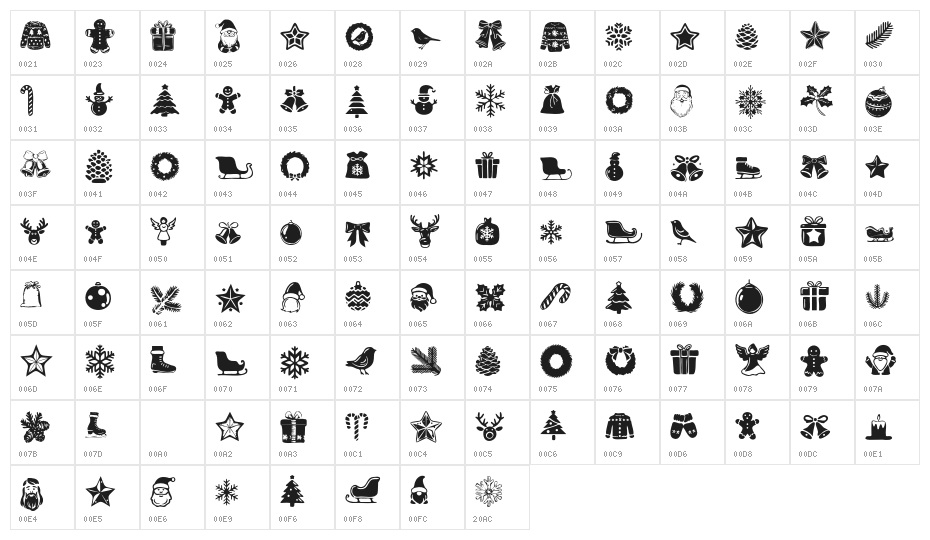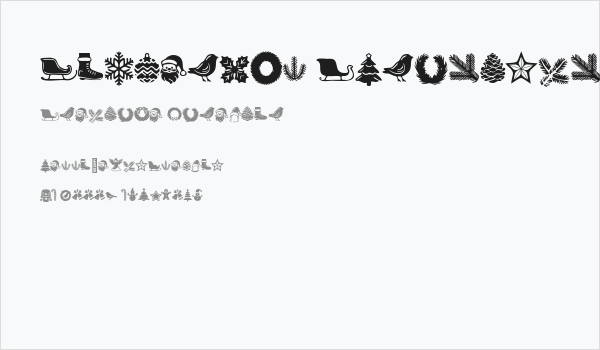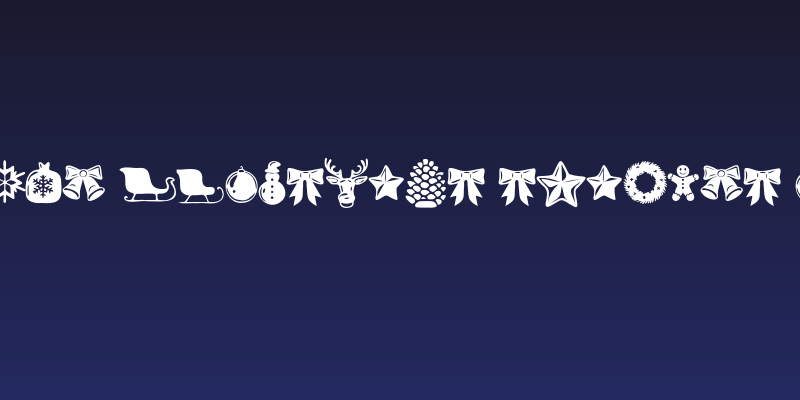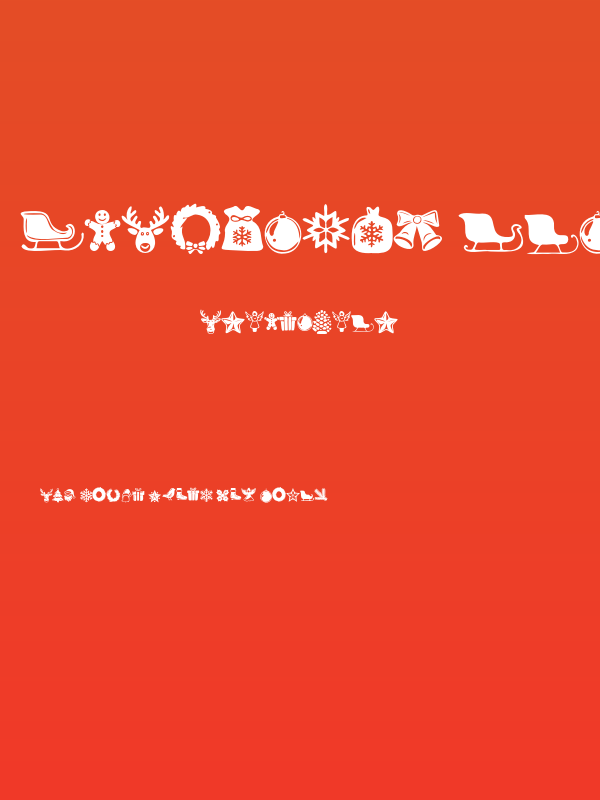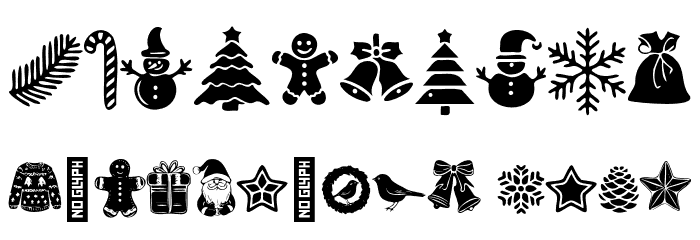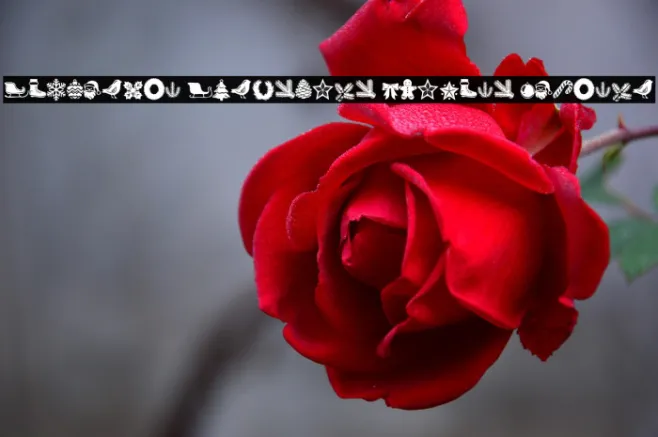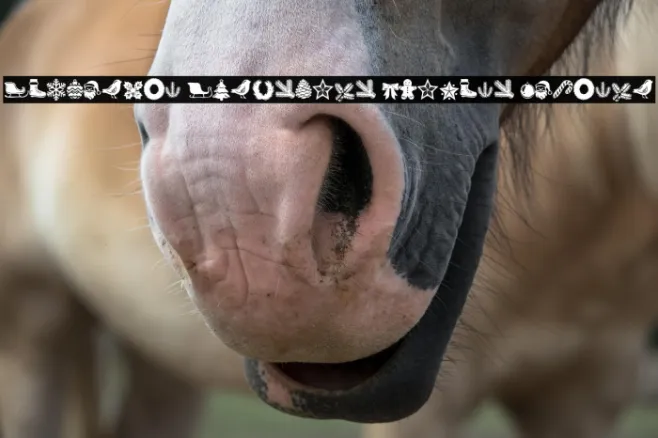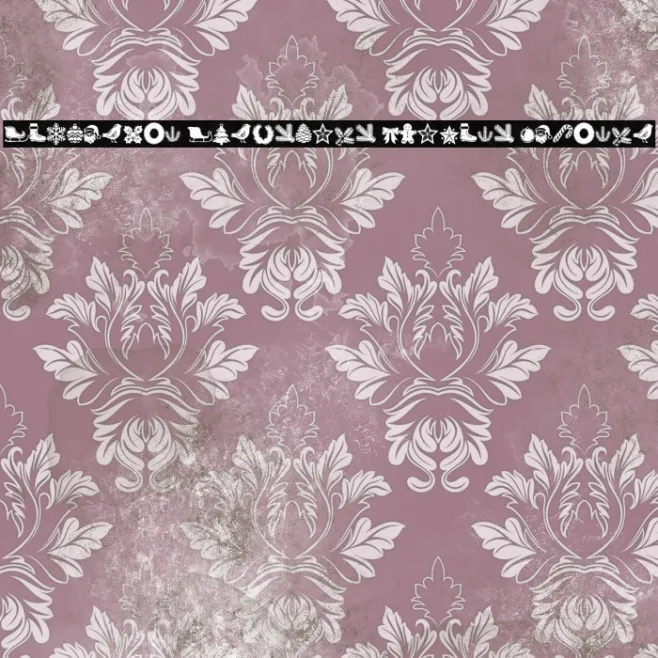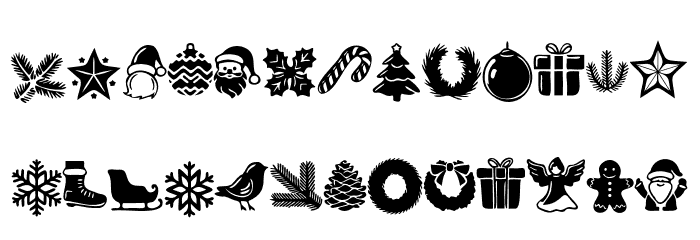
Wonderful Christmas Symbols Regular Font
| Anwendungsfall | Logos, Headlines, Decorative elements |
| Vorgeschlagene Projekte | Holiday cards, festive decorations, seasonal marketing materials, gift tags, and Christmas-themed websites. |
Wonderful Christmas Symbols Regular